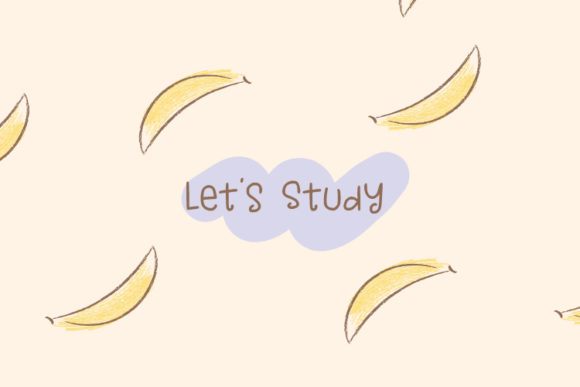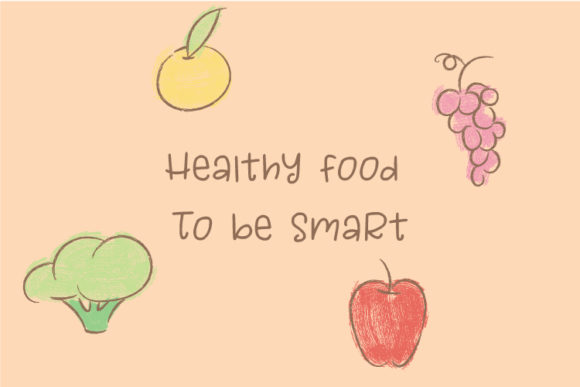
Fun School Font
db-ku.com - Script & Handwritten -- Fun School is a fresh and playful handwritten font. It is perfect for poster designs, book covers, merchandise, fashion campaigns, newsletters, greeting cards, album covers and so much more!